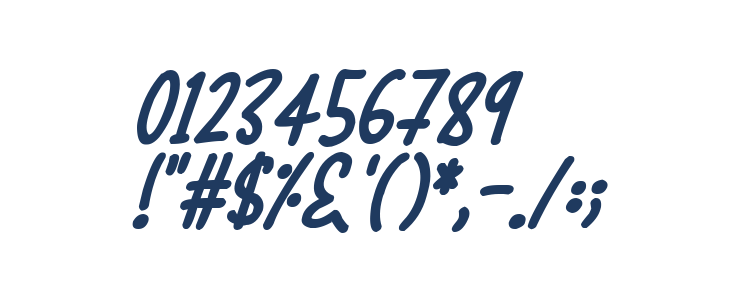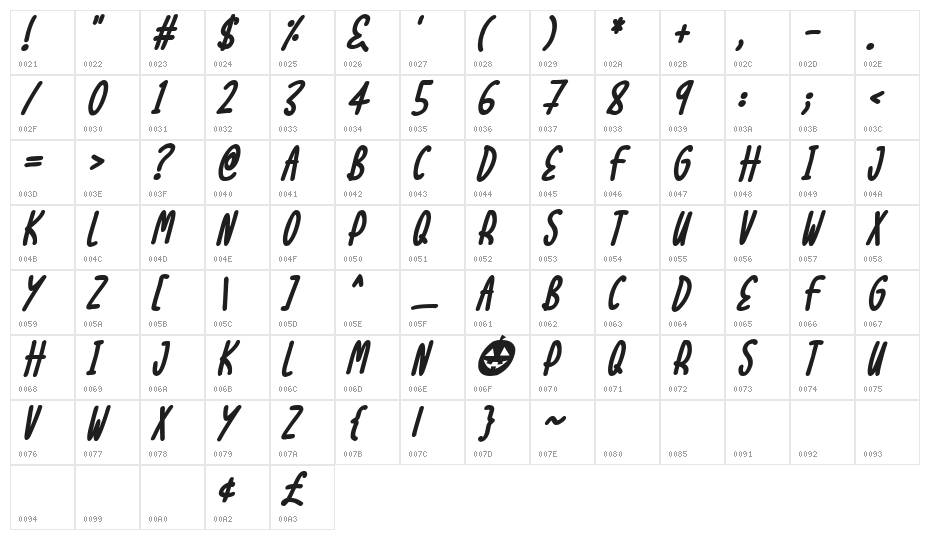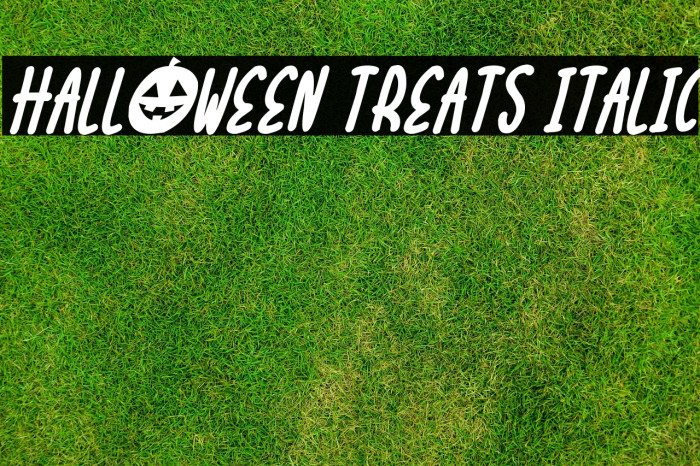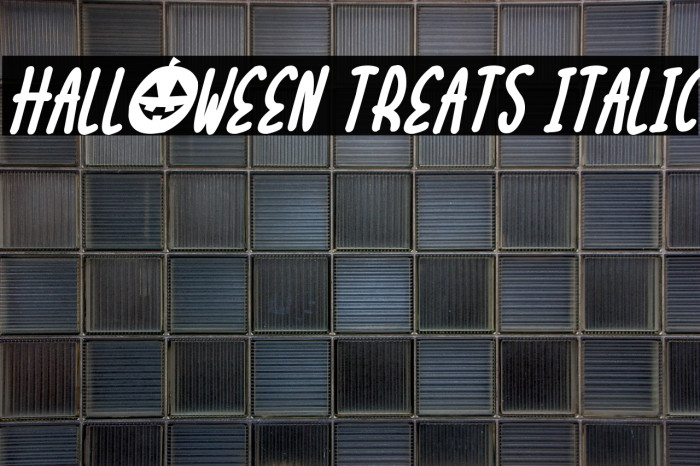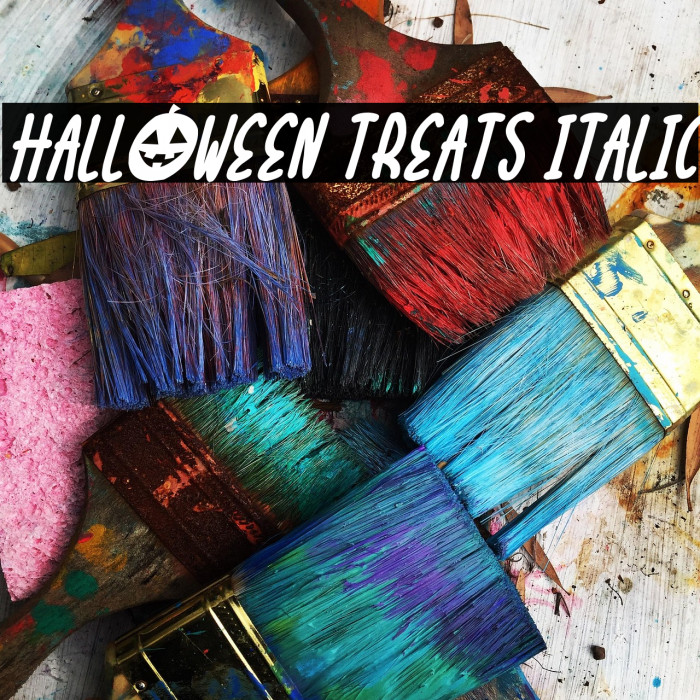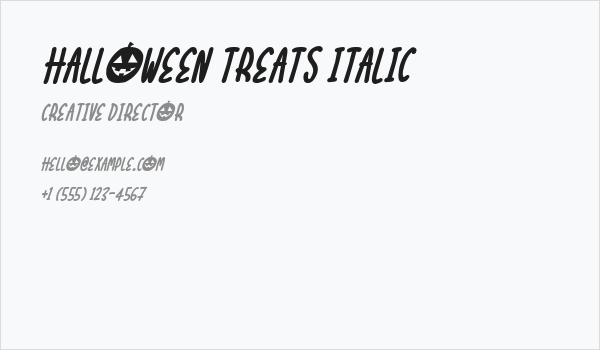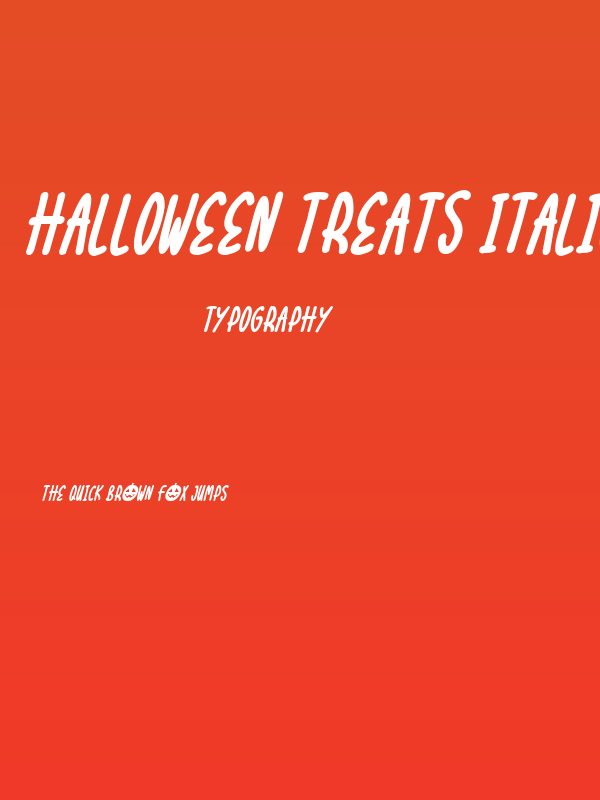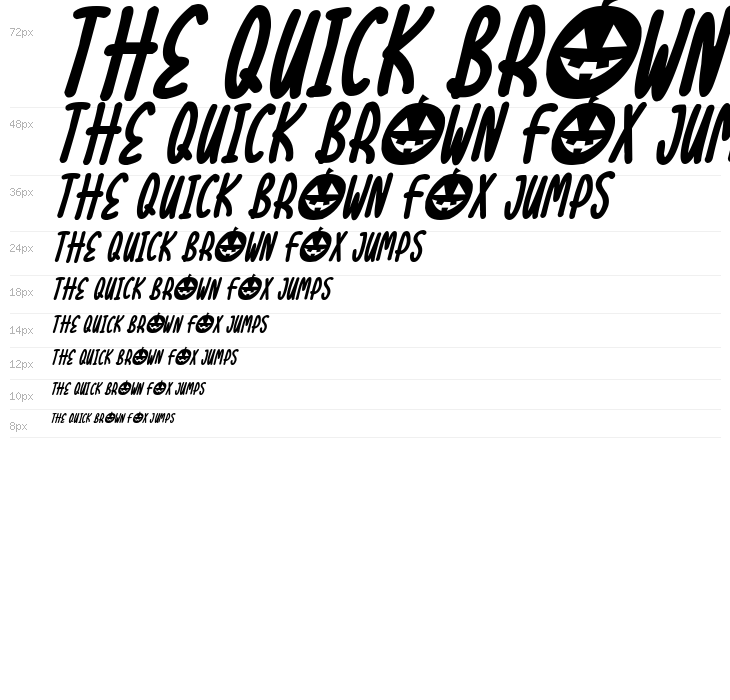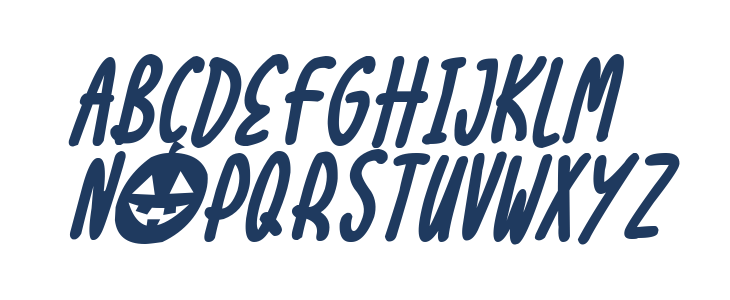
Halloween Treats Italic Font
Halloween Treats Italic Description
This playful and bold font features a handwritten style with a distinct italic slant, giving it a lively and energetic appearance. The characters are thick and rounded, with a consistent stroke width that adds to its boldness. The font includes a unique Halloween-themed character, a pumpkin face, which enhances its festive appeal. The numbers and special characters maintain the same playful style, making it suitable for creative and fun projects. The overall design is cohesive, with each letter flowing smoothly into the next, creating a sense of movement and excitement.
| Proposed Projects | Ideal for Halloween-themed posters, party invitations, children's book covers, and playful branding. |